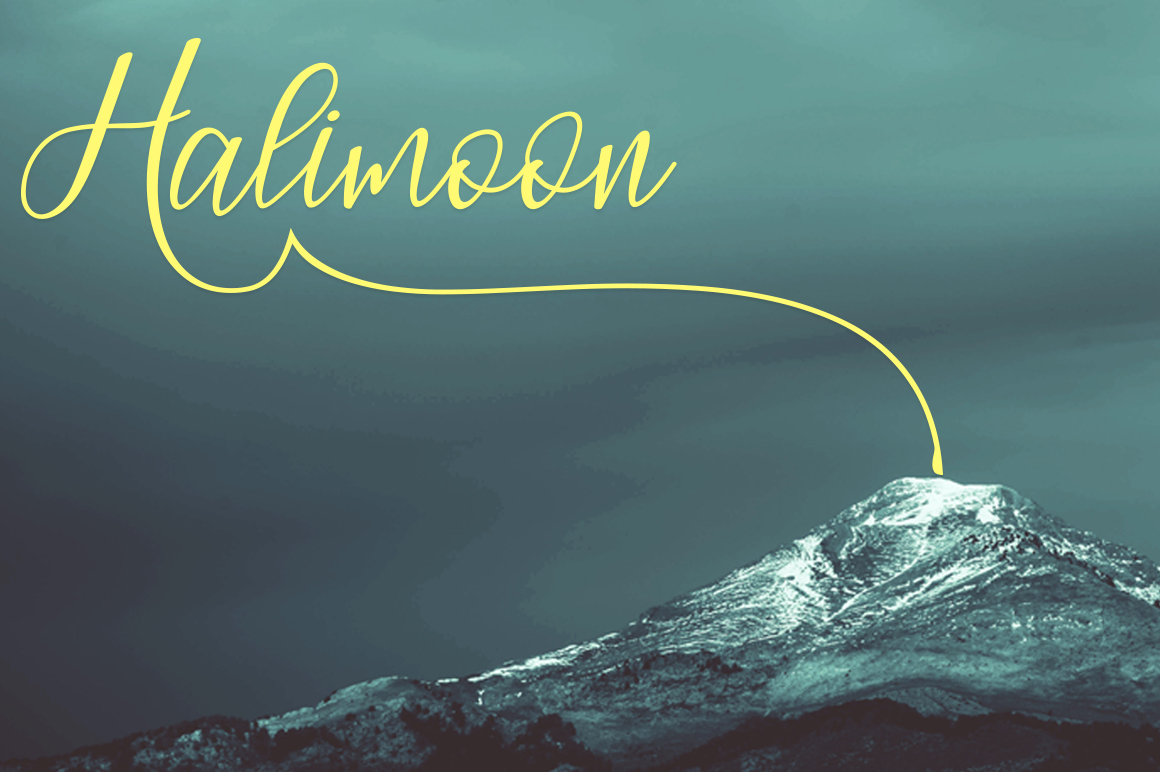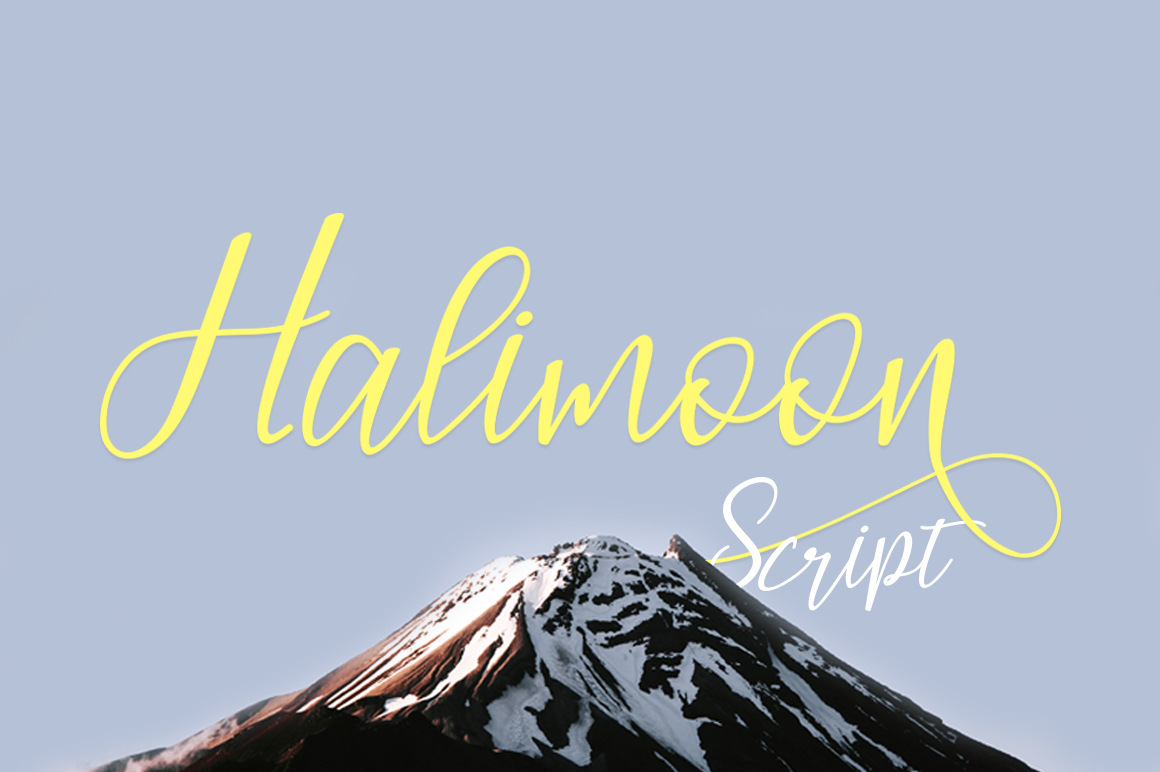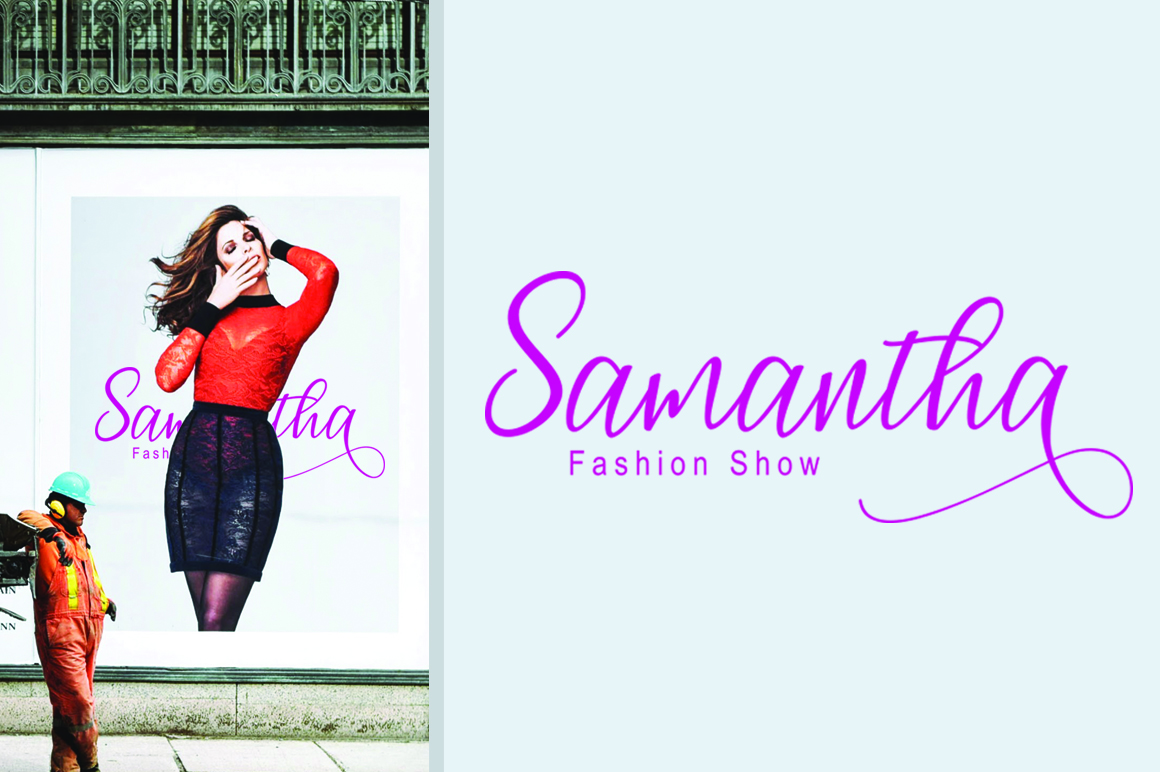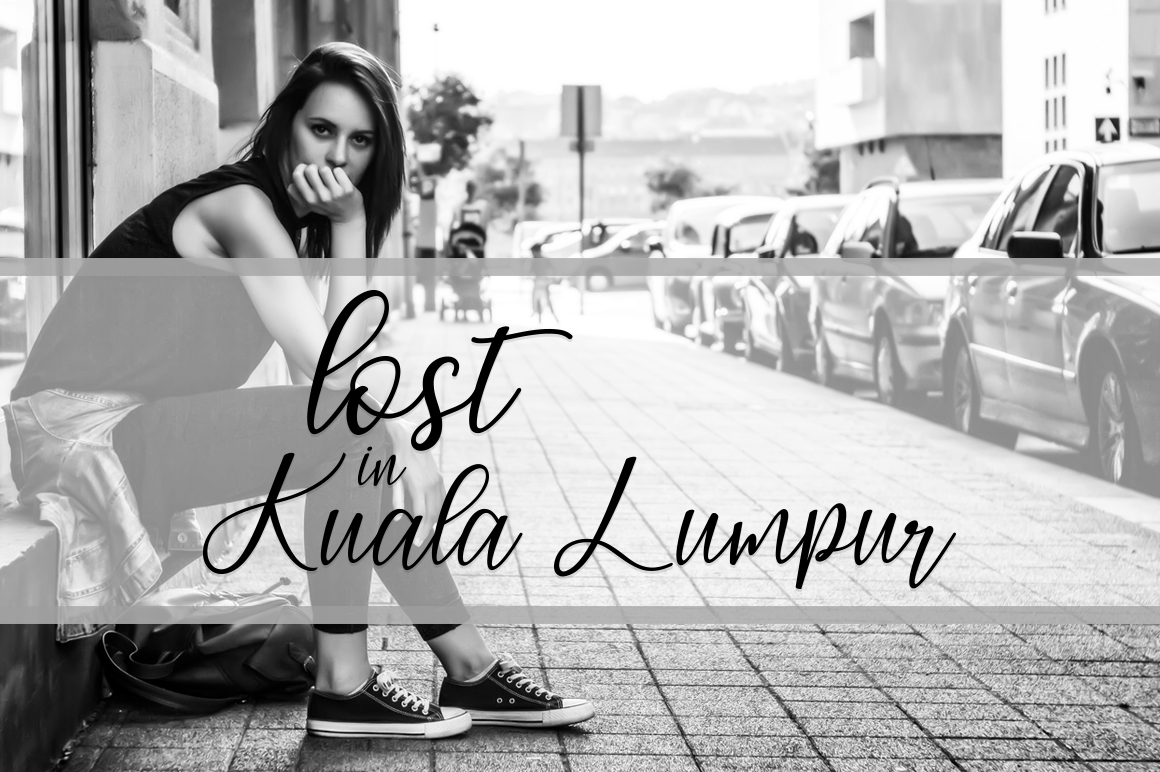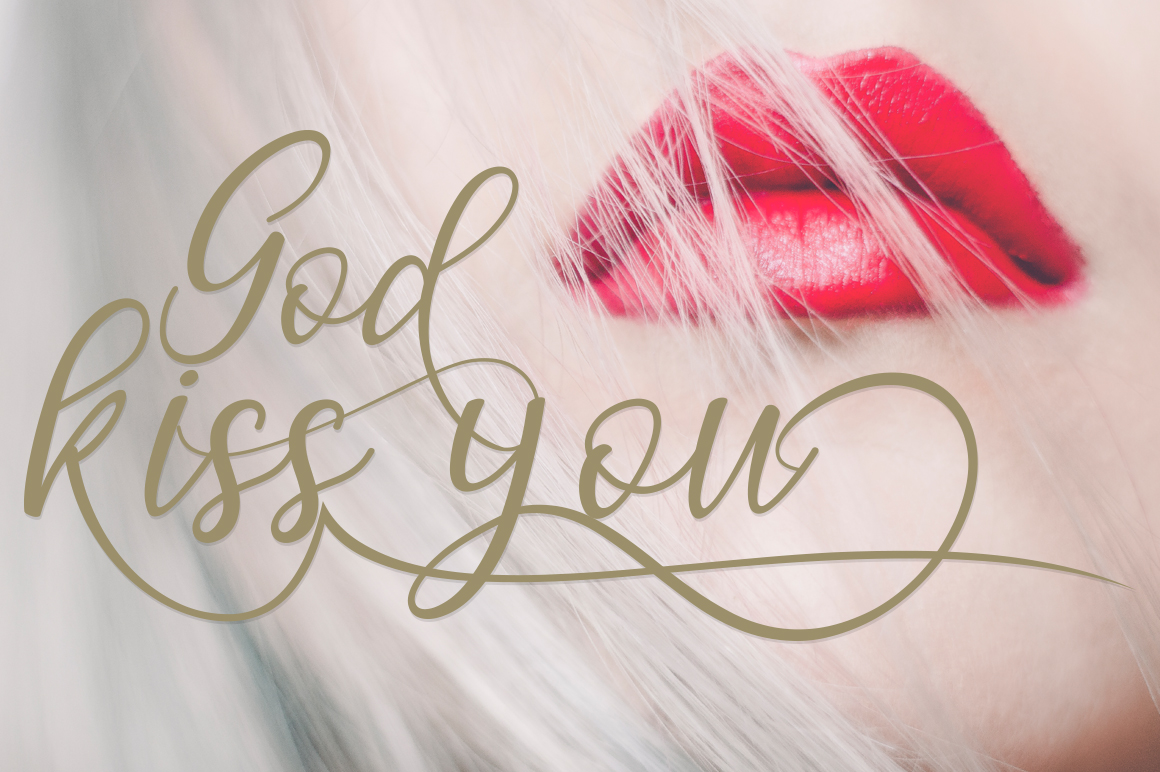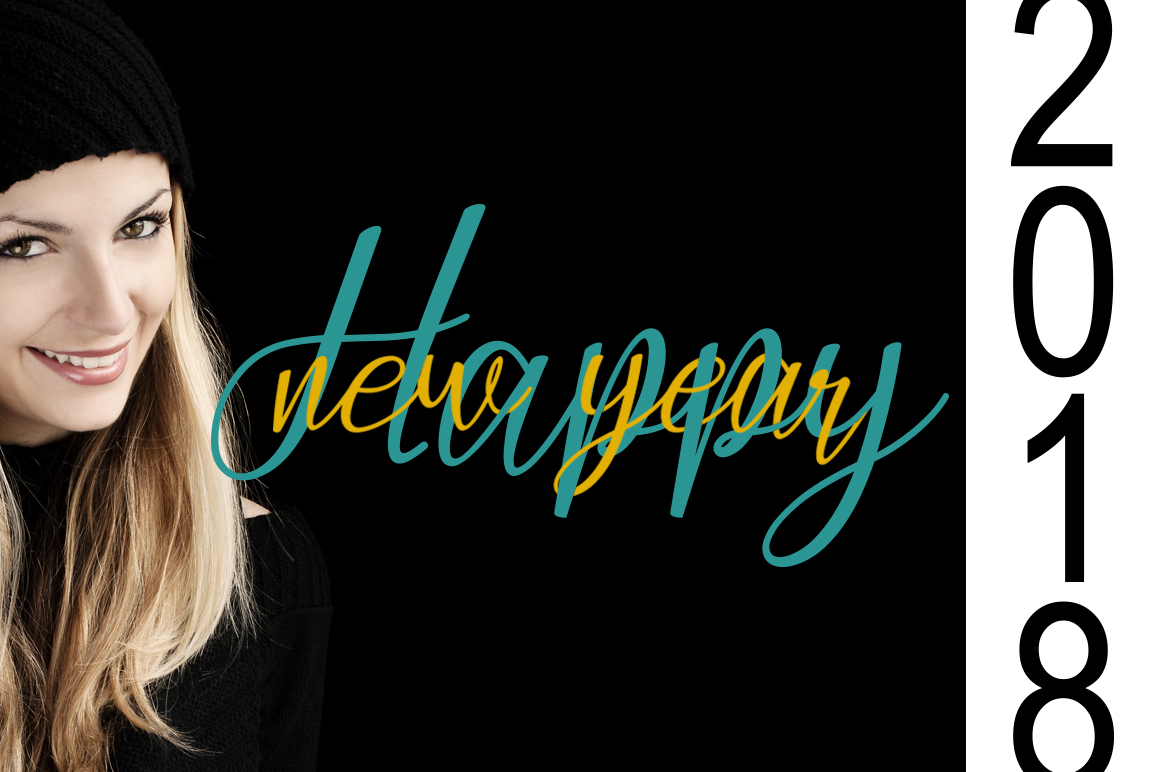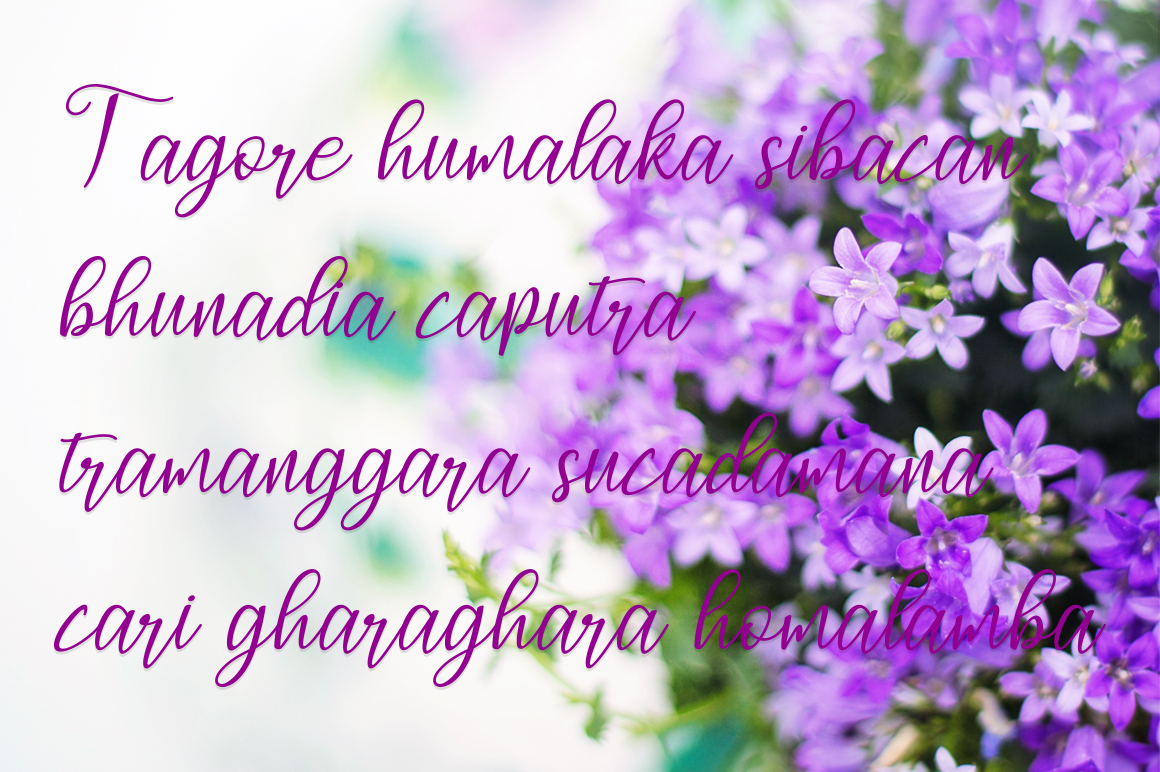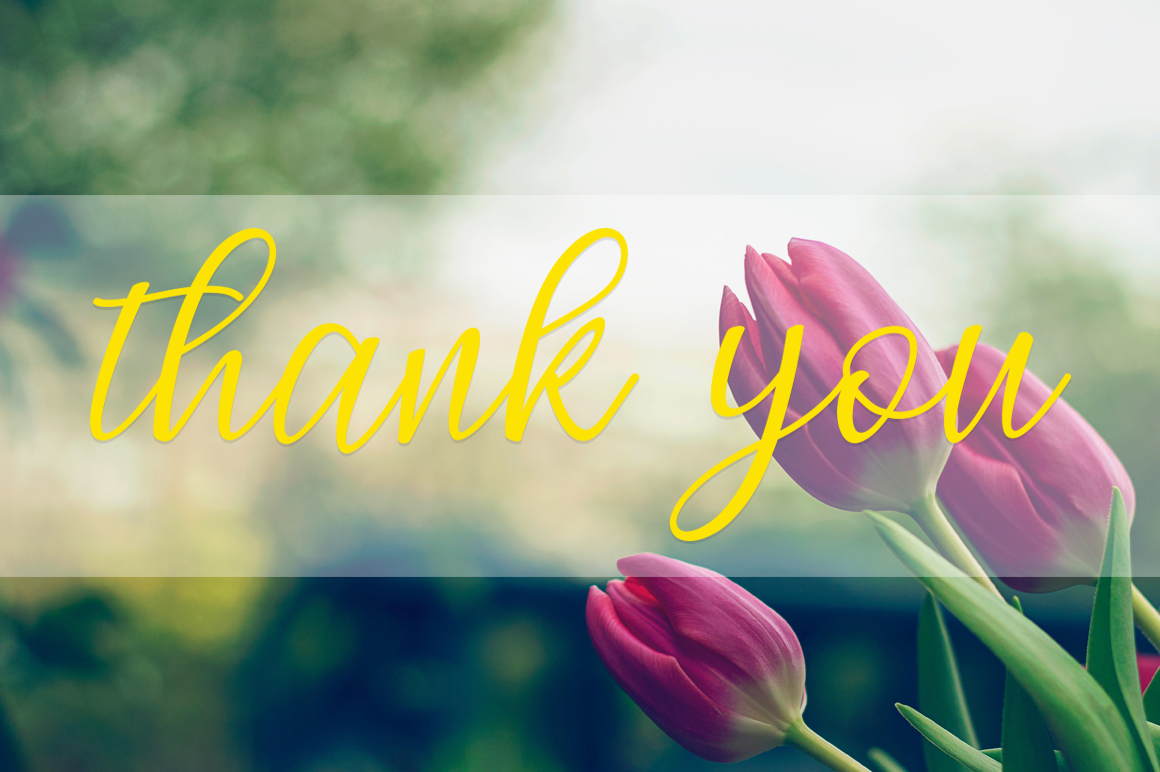
Halimoon Script Font
About Halimoon Script Font
Halimoon script is a font suitable for all purposes of graphic and visual design; beautiful and romantic, Halimoon is an on-trend script that will amplify the beauty of your designs.